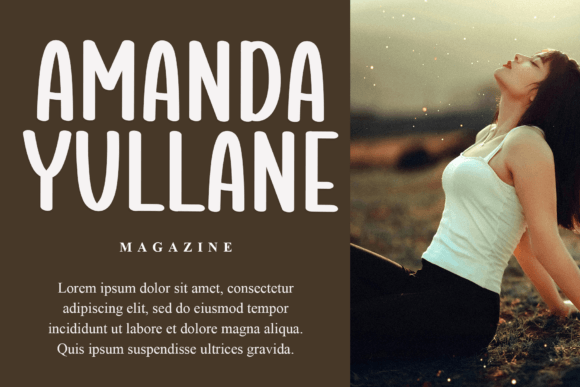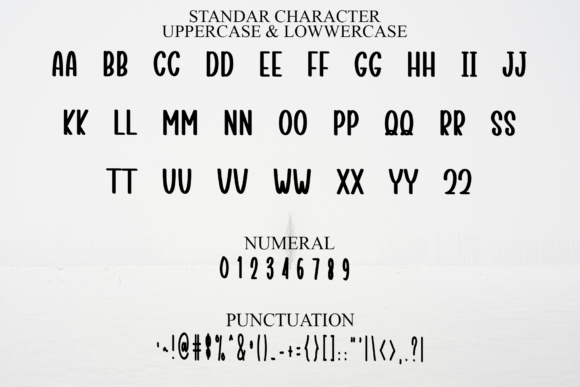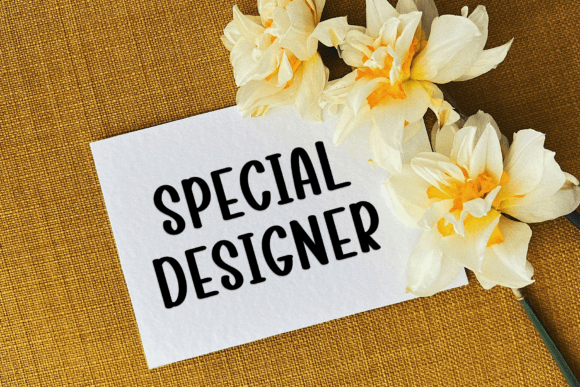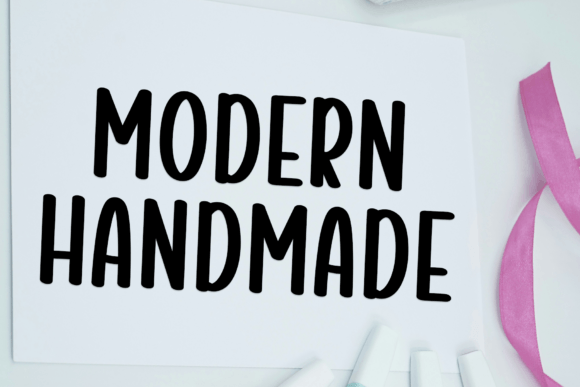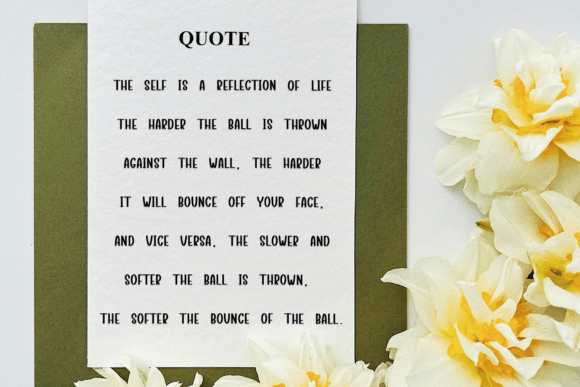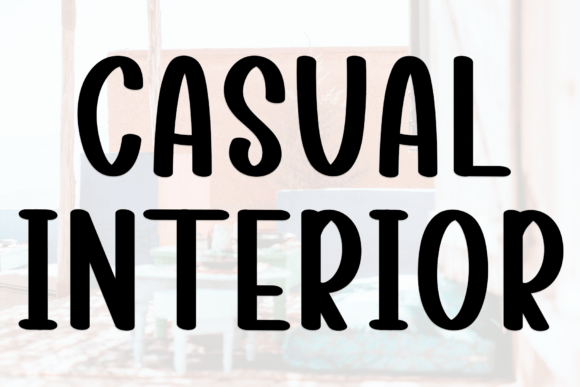
Casual Varsity Font: Elevate Your Designs with a Unique and Attractive Typeface
In the world of design, fonts play a crucial role in conveying messages, expressing emotions, and creating visual identities. Among the numerous font styles available, the Casual Varsity Font stands out for its distinctive and attractive appearance. This beautiful font is designed with a soft touch, making it perfect for various design needs, from handicrafts to digital applications.
The Unique Features of Casual Varsity Font
What sets Casual Varsity Font apart from other fonts is its unique and distinctive stroke. The font’s creator has carefully crafted each character to have a natural, effortless look that exudes a sense of friendliness and approachability. The font’s soft touch makes it suitable for designs that require a personal and informal tone.
One of the key benefits of Casual Varsity Font is its versatility. The font comes with a wide range of characters, making it an excellent choice for designers who need to create complex and visually appealing designs. Whether you’re working on a logo, a poster, or a digital application, Casual Varsity Font is an excellent choice.
Applications of Casual Varsity Font
Casual Varsity Font is a highly versatile font that can be used in various applications, including:
• Design needs: The font’s unique and attractive appearance makes it perfect for designs that require a personal touch, such as logos, posters, and brochures.
• Handicrafts: The font’s natural and effortless look makes it suitable for handicrafts, such as handmade cards, gift tags, and other paper crafts.
• Digital applications: Casual Varsity Font can be used in various digital applications, including website designs, social media graphics, and mobile app interfaces.
The Benefits of Using Casual Varsity Font
Using Casual Varsity Font in your designs offers numerous benefits, including:
• Attractiveness: The font’s unique and attractive appearance makes it perfect for designs that require a personal touch.
• Versatility: The font’s wide range of characters makes it suitable for various design needs.
• Legibility: The font’s natural and effortless look makes it easy to read, even at small sizes.
Tips for Using Casual Varsity Font
To get the most out of Casual Varsity Font, here are some tips to keep in mind:
• Use it for headings: Casual Varsity Font is perfect for headings and titles, where its unique and attractive appearance can make a big impact.
• Pair it with other fonts: The font can be paired with other fonts to create a visually appealing contrast.
• Experiment with colors: Casual Varsity Font can be used with various colors to create a unique and eye-catching design.
In conclusion, Casual Varsity Font is a beautiful and attractive font that can elevate your designs to the next level. Its unique and distinctive stroke, versatility, and technical compatibility make it an excellent choice for designers and crafters. Whether you’re working on a logo, a poster, or a digital application, Casual Varsity Font is a great option to consider.
With its natural and effortless look, Casual Varsity Font is perfect for designs that require a personal and informal tone. So why not give it a try and see how it can enhance your designs?